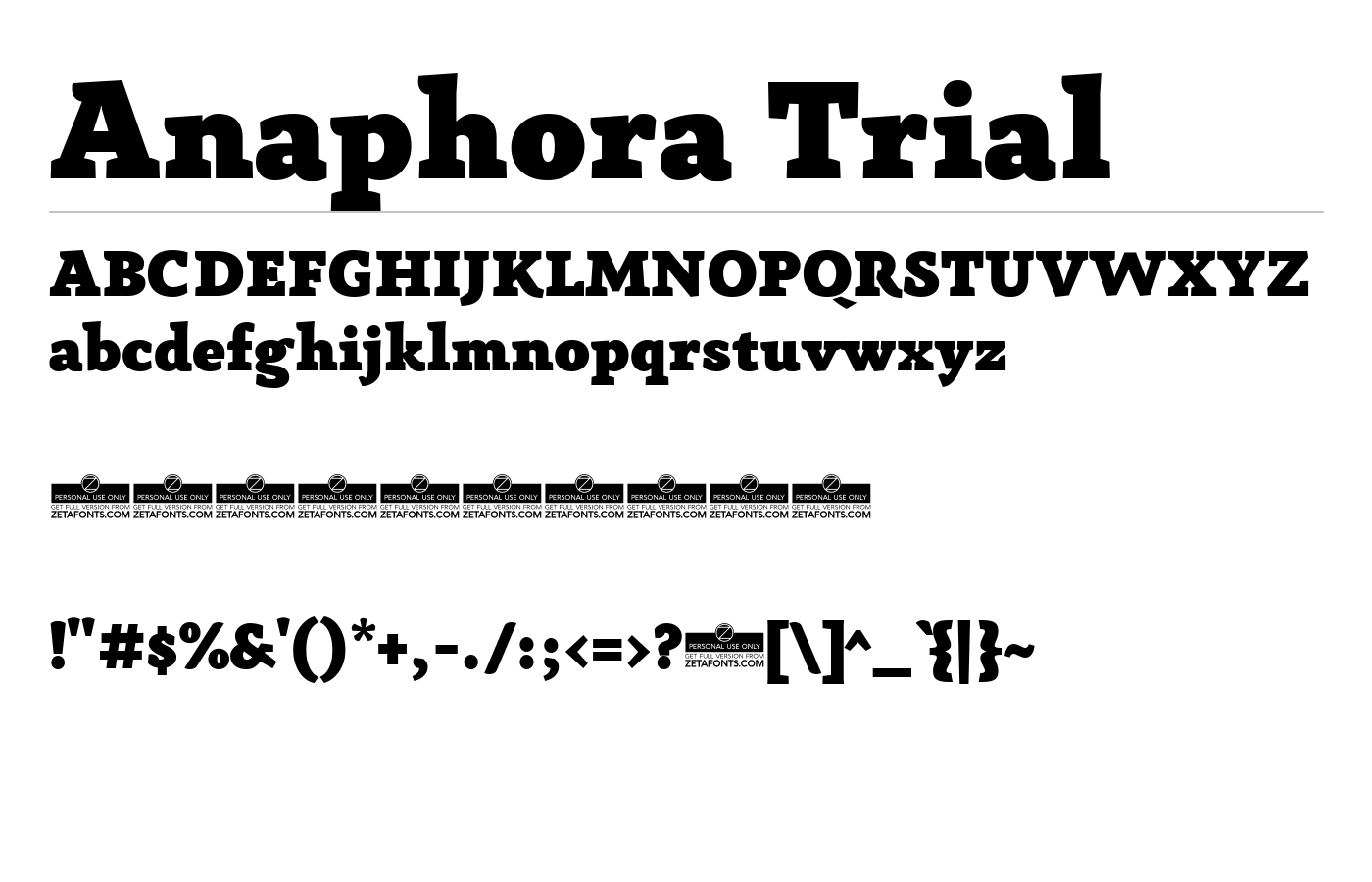
Anaphora Trial is a bold slab serif font with a strong, confident presence defined by its thick strokes and pronounced, blocky serifs. Its medium x-height and uniform stroke weight give it a sturdy and slightly playful character, making it ideal for headlines, posters, and branding that want to convey strength and reliability with a vintage-inspired touch. This font works well in designs needing impactful, easy-to-read typography that still retains a friendly and approachable vibe.
Anaphora Trial Font
About Anaphora Trial Font